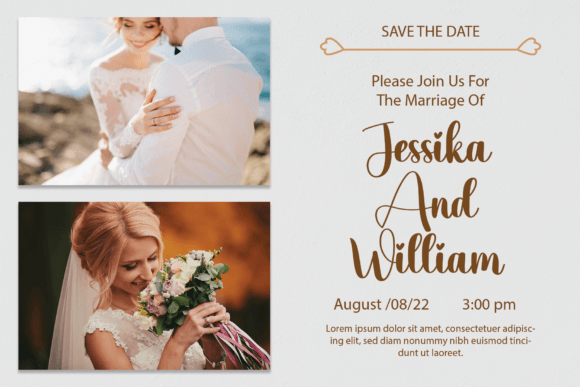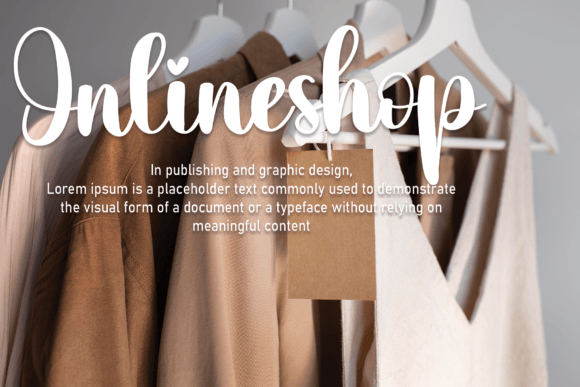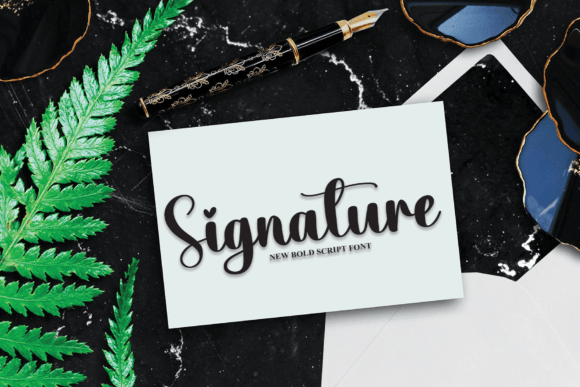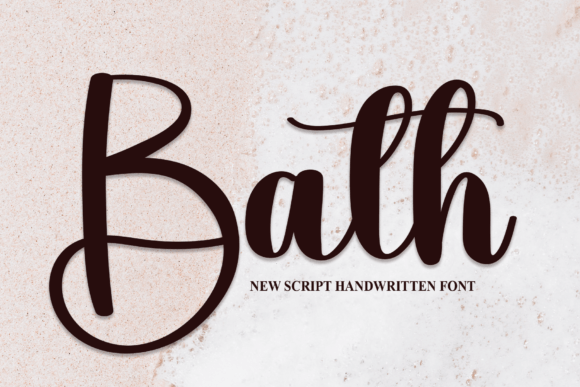
Introduction to Bath Font
Bath is a modern handwritten font.
Its latest style letters are perfect for wall displays, wedding invitations, social media post logos, advertisements, product packaging, product designs, labels, photography, watermarks, invitations, stationery, and any project that requires handwritten typography .
Why Choose Bath Font?